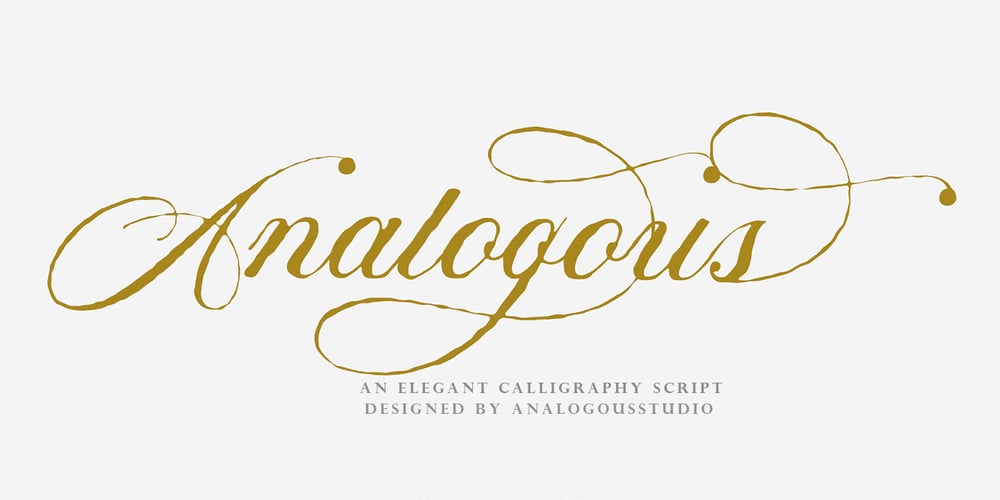
Analogous Script Font Family was designed by Muhammad Ilham and published by OldStudioo. Analogous Script contains 1 styles and family package options. Introducing Analogous Script is elegant calligraphy font with a classic style and a touch of elegance, inspired by the handwriting and ancient manuscripts. Carefully designed to work together in harmony that makes it very suitable for wedding media, book covers, greeting cards, logos, branding, business cards and certificates, even for any design work that requires a classic, formal or luxurious.Analogous script, an elegant, full-featured script font with tons of alternate characters and OpenType features. Hand-lettered with a heavy right slant. Specific OpenType features include contextual alternates, stylistic alternates, initial and final forms, multiple alternate glyphs for many letters (accessed through the glyphs panel), multilingual support (including multiple currency symbols), ligatures, standard numbers, and six ampersand styles.What’s Included: Analogous script .OTF Alternate Character Map for swashes, alternates, etc. PUA Support Thanks!